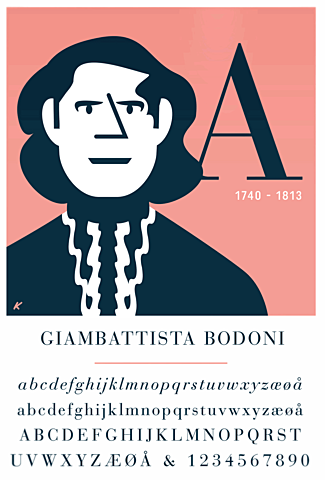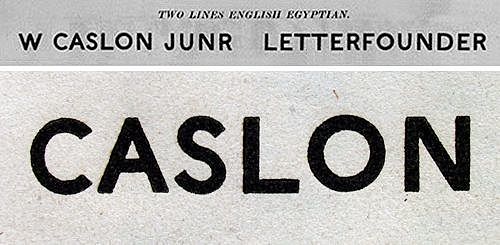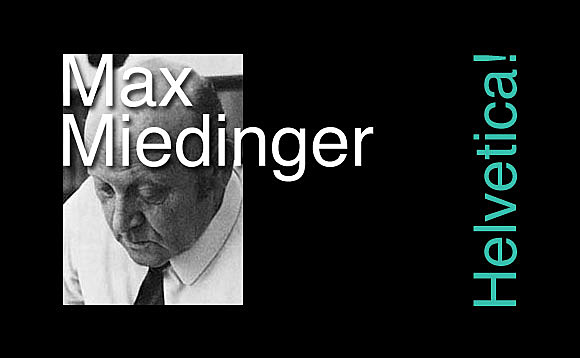
In the 1400's, Guttenberg invented Movable Typefaces (a cheaper way to obtain the written word). He also created the first typeface, Blackletter-it was dark, fairly practical, and intense, but not very legible-
In the 1470's, Jensen created Roman Type- inspired by the text on ancient roman buildings & far more
readable than blackletter- -
In 1501, Manutius created Italics-a way to fit more words onto a page- used as a design detail or for emphasis when writing.
In 1734, Caslon created a Typeface- which features straighter Serifs & much more obvious contrasts between thin and bold strokes-
In 1757, Baskerville created Transitional type(what we call now) -a Roman-style type, with very sharp Serifs and lots of drastic contrast between thick and thin lines-
In 1780, Didot & Bodoni created the first ‘modern’ Roman typefaces- the contrasts were more extreme than ever before, & created a very fresh look-
In 1815, Figgins created Egyptian (Slab Serif)- first time a typeface had Serifs that were squares or boxes-
In 1816, Caslon IV created the first typeface without any serifs at all (what we know now as San Serif typefaces)
In the 1920's, Goudy(world’s first full time type designer)developed various typefaces- Copperplate Gothic, Kennerly, & Goudy Old Style-
In 1957, Miedinger(swiss designer) created Helvetica-most loved typeface of our time-
Now, with the internet; we have such a vast variety of old and new typefaces available. All these typefaces give us an abundance of options and looks for our designs today.